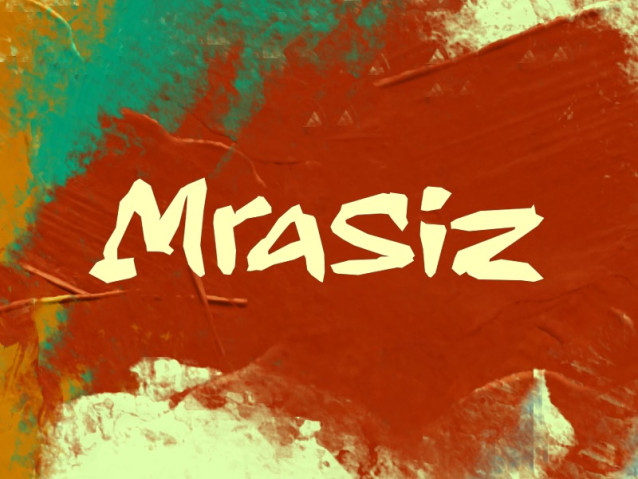
Mrasiz Font
Mrasiz Font is a simple and friendly handwritten font. Its natural and unique style makes it incredibly fitting to a large pool of designs. The only limit is your imagination!